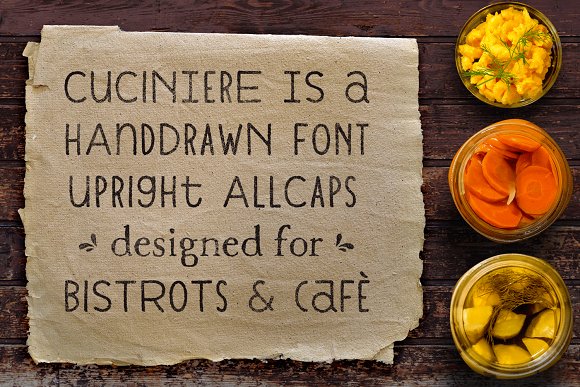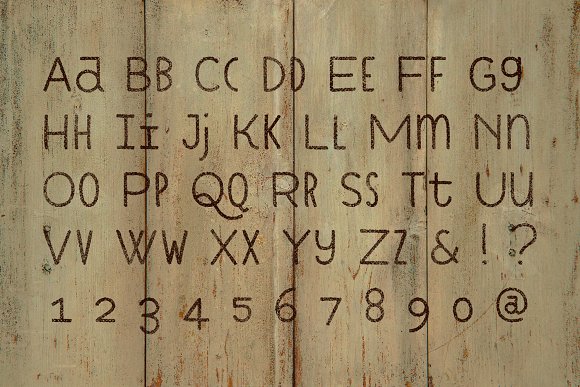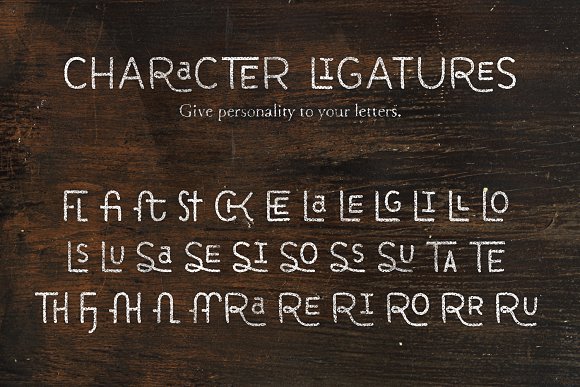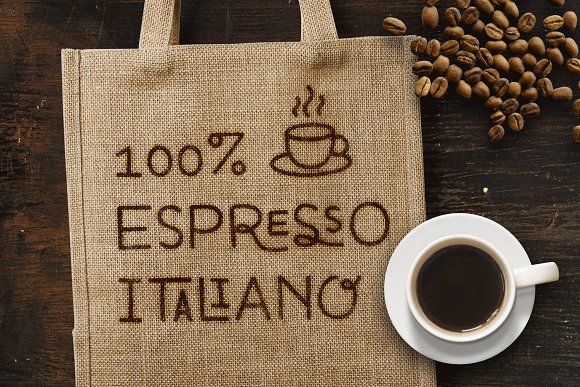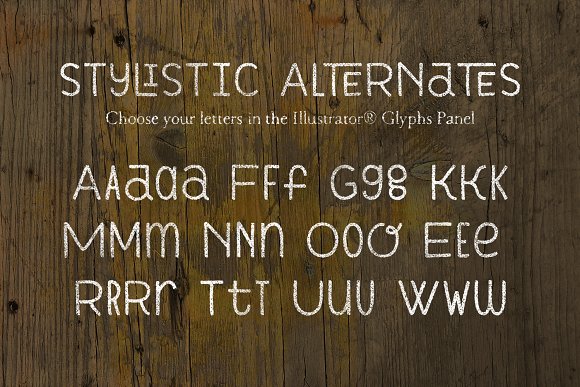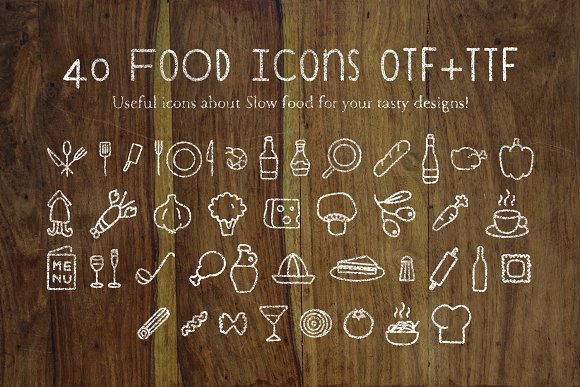
Cuciniere Font: The Perfect Choice for Foodies and Designers
Are you a food blogger, chef, or designer looking for a unique and elegant font to showcase your culinary creations? Look no further than the Cuciniere Font. This stunning typeface is specifically designed for food lovers, offering a sophisticated and hand-written feel that’s perfect for recipes, menus, magazines, and branding.
What is Cuciniere Font?
Cuciniere is a carefully crafted font that combines all-caps characters with some lowercase letters, creating a beautiful and distinctive look. The font features a elegant hand-written feel, making it ideal for adding a personal touch to your culinary projects. With its high customization options, including stylistic alternates, wide and condensed styles, lowercase letters, and type ligatures, you can tailor the font to suit your specific needs.
Key Features of Cuciniere Font
- All-caps and lowercase characters: Cuciniere font features a unique mix of all-caps and lowercase letters, creating a visually appealing contrast.
- Elegant hand-written feel: The font boasts a sophisticated, hand-written look that’s perfect for adding a personal touch to your culinary projects.
- High customization: With stylistic alternates, wide and condensed styles, lowercase letters, and type ligatures, you can customize the font to suit your specific needs.
- Dingbats font included: As a bonus, the Cuciniere font comes with a dingbats font featuring 40 hand-drawn, food-related icons, including slow food, desserts, wines, pasta, and more.
The Perfect Font for Foodies and Designers
Whether you’re a food blogger looking to add a touch of elegance to your recipes, a chef wanting to create stunning menus, or a designer seeking a unique font for your client’s culinary brand, Cuciniere is the perfect choice. The font’s versatility and customization options make it suitable for a wide range of applications, from food blogs and magazines to restaurant menus and branding.
Benefits of Using Cuciniere Font
- Stand out from the crowd: With its unique and elegant design, Cuciniere font will help you stand out from the crowd and add a touch of sophistication to your culinary projects.
- Save time and effort: The font’s high customization options and included dingbats font make it easy to create stunning culinary content without spending hours designing from scratch.
- Enhance your brand: Cuciniere font is perfect for creating a strong brand identity for your culinary business, helping you to establish a consistent and recognizable visual style.